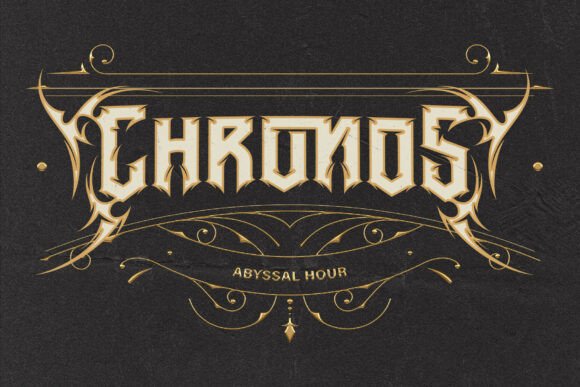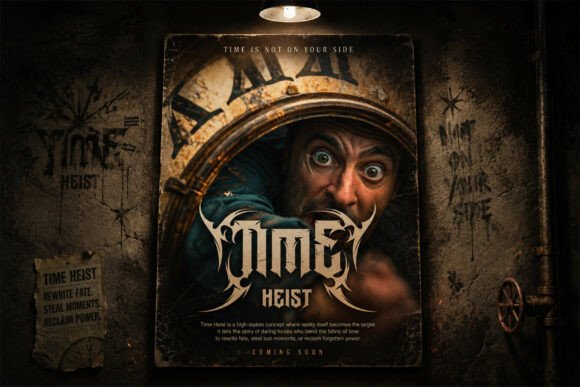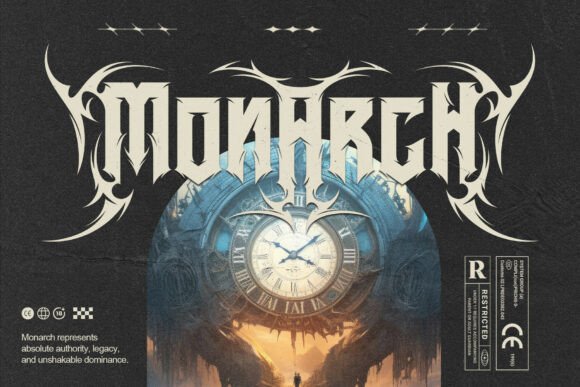
Istarot is a fierce blackletter typeface forged with dark elegance, razor-sharp details, and a commanding gothic presence.
Inspired by medieval architecture, occult symbolism, and the raw energy of extreme metal aesthetics, Istarot delivers a bold visual identity that feels both timeless and aggressive Its dramatic strokes, sharp ornamental edges, and symmetrical structure make it perfect for album artwork, premium branding, game titles, posters, packaging, cinematic visuals, whiskey labels, merchandise, and luxury gothic-inspired products.